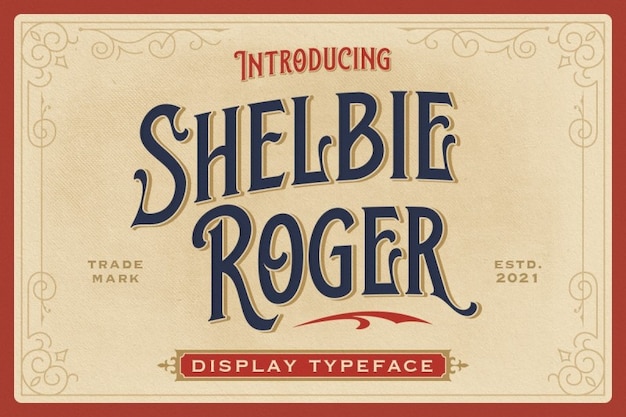
Shelbie Roger Font
Ladies and gentlemen, the most nostalgic, elegant and beautiful of fonts, is finally here! We are happy to share the Shelbie Roger font, a perfect example of a retro and classy font with ornamental touches, inspired by those late 1800s commercials and posters. This typeface includes uppercase and lowercase versions, as well and multilingual support.